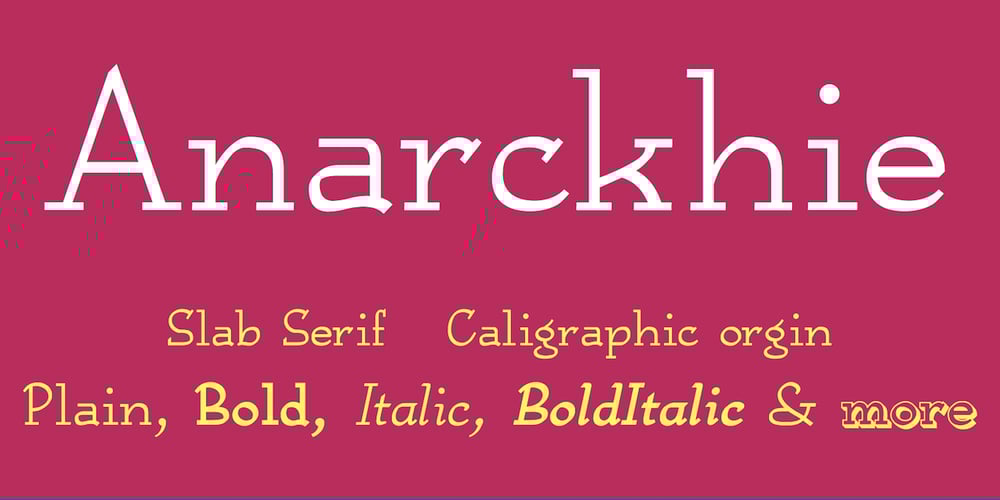
Anarckhie Font Family was designed by Robert Schenk and published by Ingrimayne Type. Anarckhie contains 9 styles and family package options. Anarckhie is a decorative slab-serifed typeface with a calligraphic origin. The horizontal elements of the upper-case letters are below their midpoint, and the x-height of the lower-case letters is unusually small. There is some variation in the weights of the horizontal, vertical, and diagonal elements. The small x-height makes this typeface appear smaller than its point size would indicate.